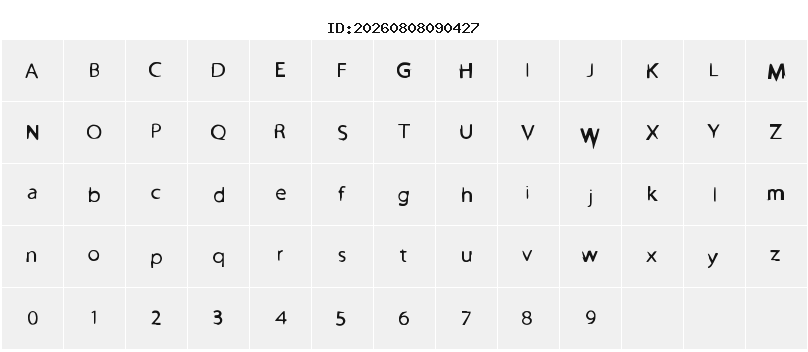
About PowerBalloon.ttf
PowerBalloon.ttf is a modern, elegant sans-serif font designed for ultimate readability and visual harmony. Perfect for branding, headlines, web design, and print materials.